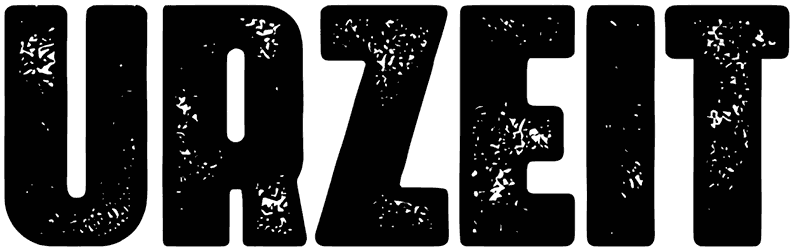
Urzeit Font
Giving traditional touch to poster setups, flyers, movie titles, and any other displays that need to show off ancient rustic effects is exclusively possible through the fascinating features of this eroded font. Here, Urzeit font, despite only being achievable in uppercase letters and numbers, is sure that it can qualify your typography to go over and beyond other opponents.
Fun Fact: “URZEIT” is german for “primeval”. So for this font we travelled back in time and found a very antiquated and rustic version of our original font “Mind the Caps”, which we released some time ago.
Of course we had to recover this special relict for all of you to enjoy and this time we’re also making its full version completely FREE.Its original smoothness and rounded edges are now presented with a dirty, rough and vintage look, which gives the font a completely new character and the true feeling of a million year old font discovery. Just like its predecessor you can still use the font for logos, headline or bold statements and it’s always an eye-catcher. And of course you can still get the clean original version @ www.shapedfonts.com/caps